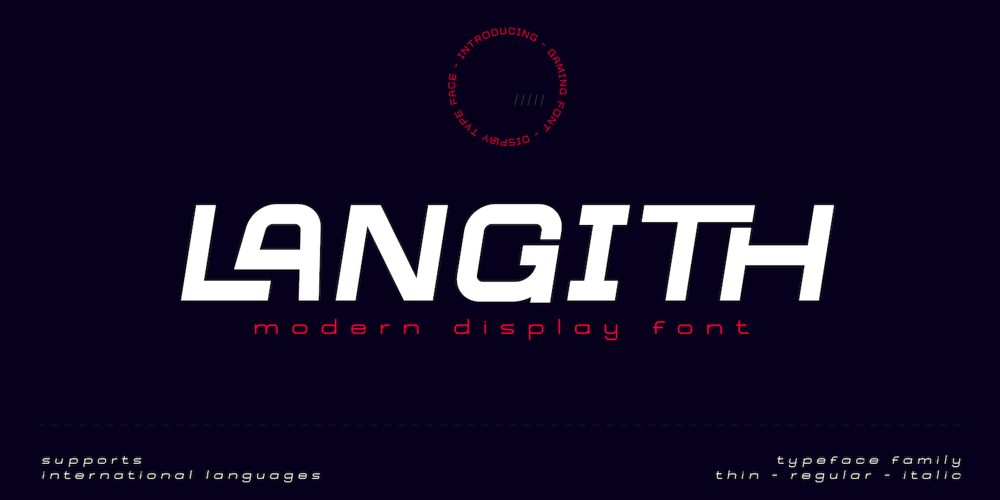
Langith
Langith font
Langith Font Family was designed by Rozikan and published by Twinletter. Langith contains 4 styles and family package options. Introducing Langith font, a very simple and clean san serif family, there is artistic value in this font, both from the width of the letters, corners, and spacing between letters, this font is also equipped with ligatures. start creating incredible designs with this fontThis font is perfect for games, sporting events, branding, banners, posters, movie titles, book titles, quotes, clothing, logotypes, and more.of course, your various design projects will be perfect and extraordinary if you use this font because this font is equipped with a complimentary font family, both for titles and subtitles and sentence text.start using our fonts for your amazing projects.